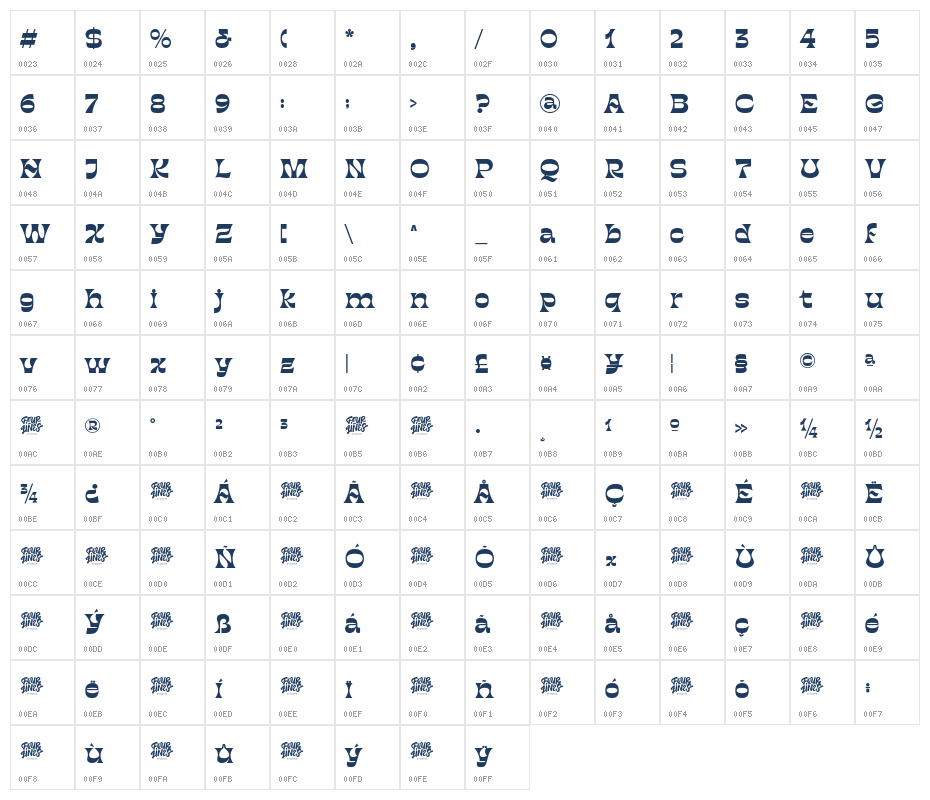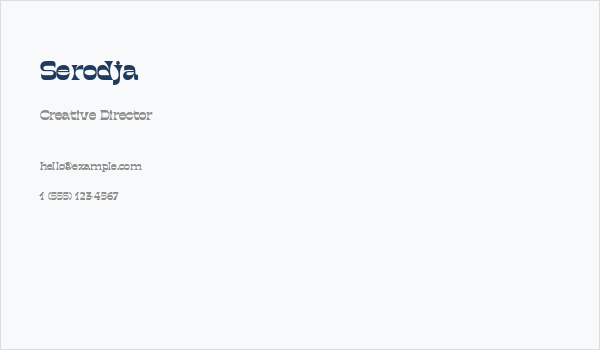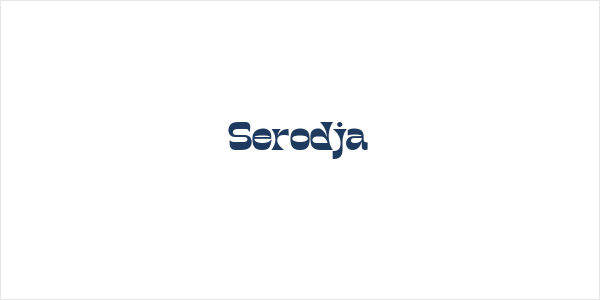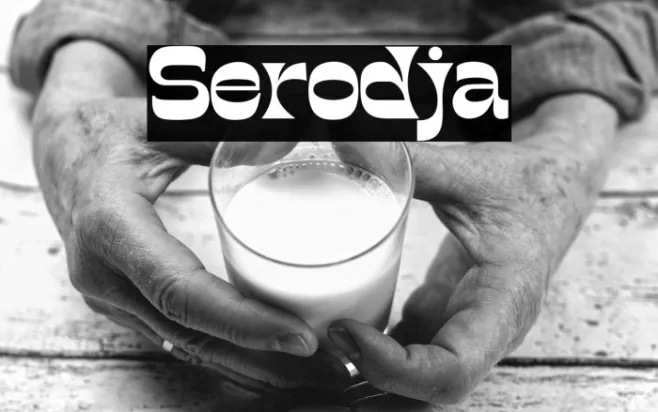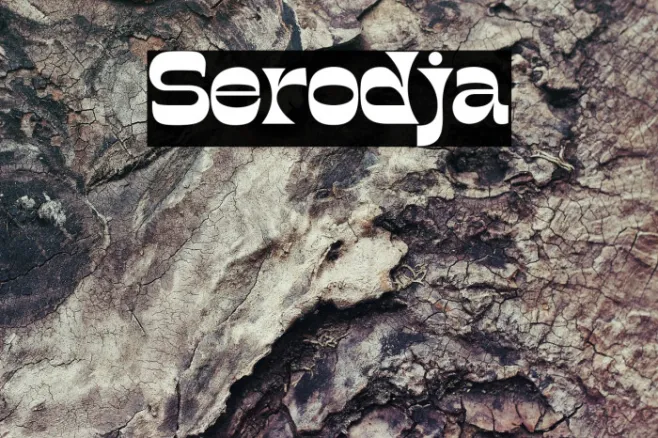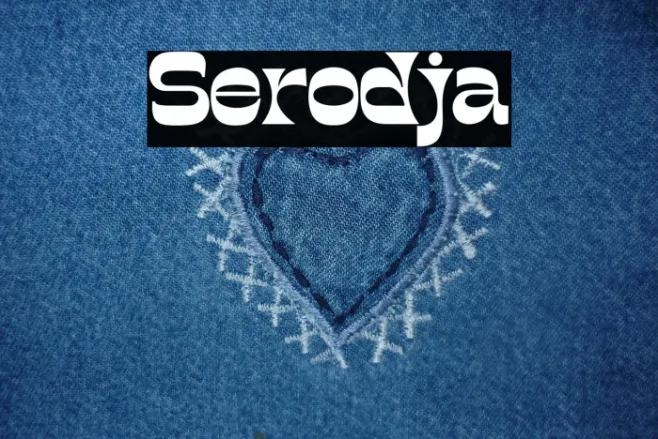
Serodja Font
Serodja Description
A decorative, bold display font with a stylized, geometric design featuring sharp angles and unique character shapes.
Serodja
| Overall Style | Geometric, Retro, Artistic |